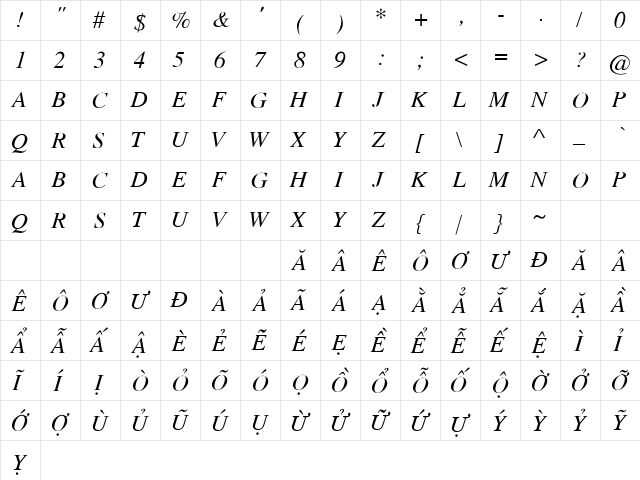
.VnTimeH Italic
Design Context for .VnTimeH Typeface
.VnTimeH offers clean, dependable letterforms without strong stylistic allegiance, making it a practical choice for designers who need flexibility. Its italic angle brings a sense of urgency and motion to the letterforms.
Pro Tip: Try .VnTimeH for annotation and caption copy alongside an upright companion — the contrast in angle creates a dynamic but ordered typographic system.